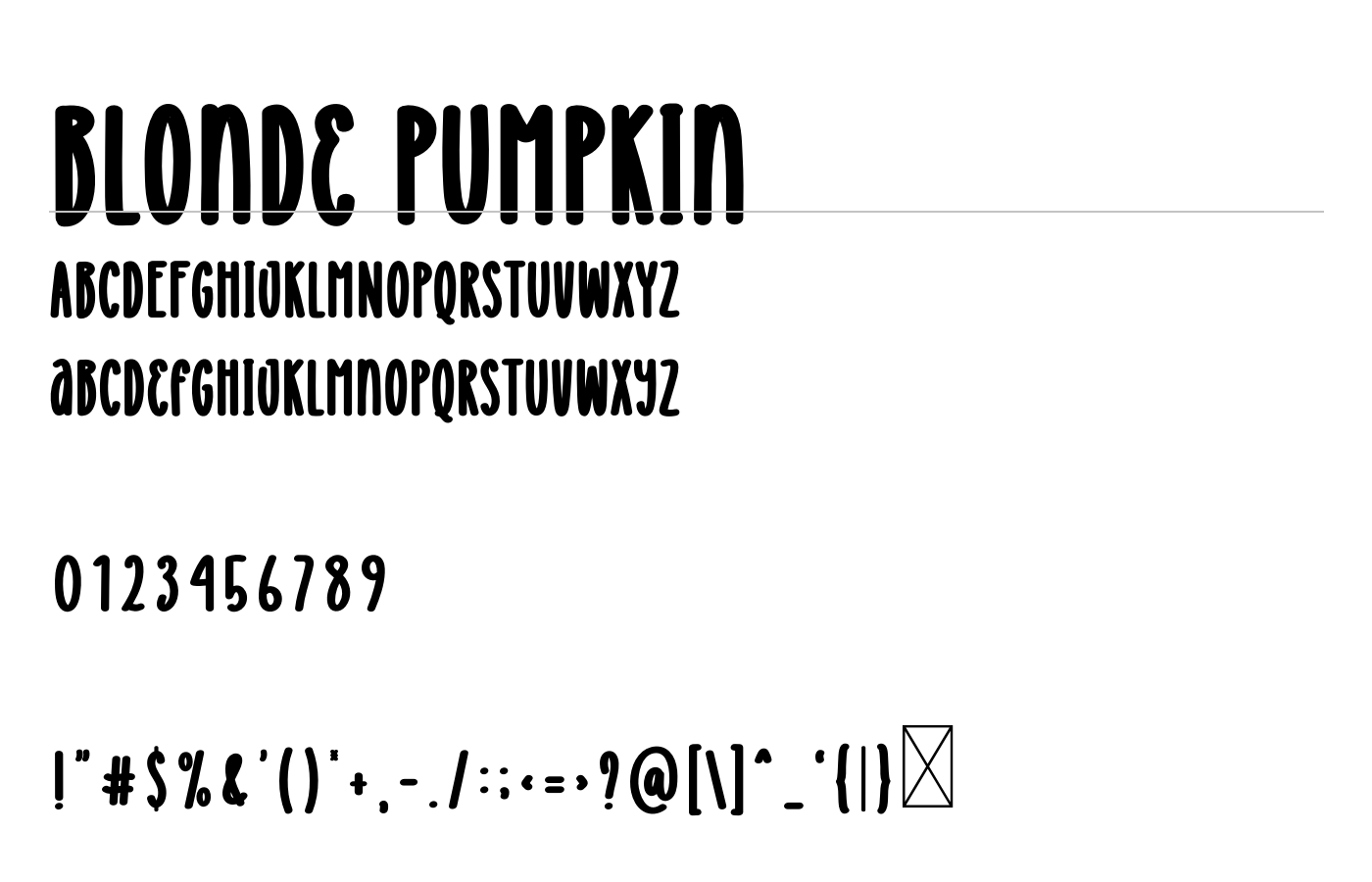
Blonde Pumpkin is a playful and condensed sans-serif font characterized by its tall, narrow letterforms with rounded edges and slightly irregular shapes, giving it a quirky, hand-drawn feel. Its high x-height and consistent stroke weight make it highly readable and approachable, perfect for cheerful branding, lively headlines, and fun packaging. This font works best where a friendly, informal tone is needed, adding personality without sacrificing clarity.
Blonde Pumpkin Font
About Blonde Pumpkin Font